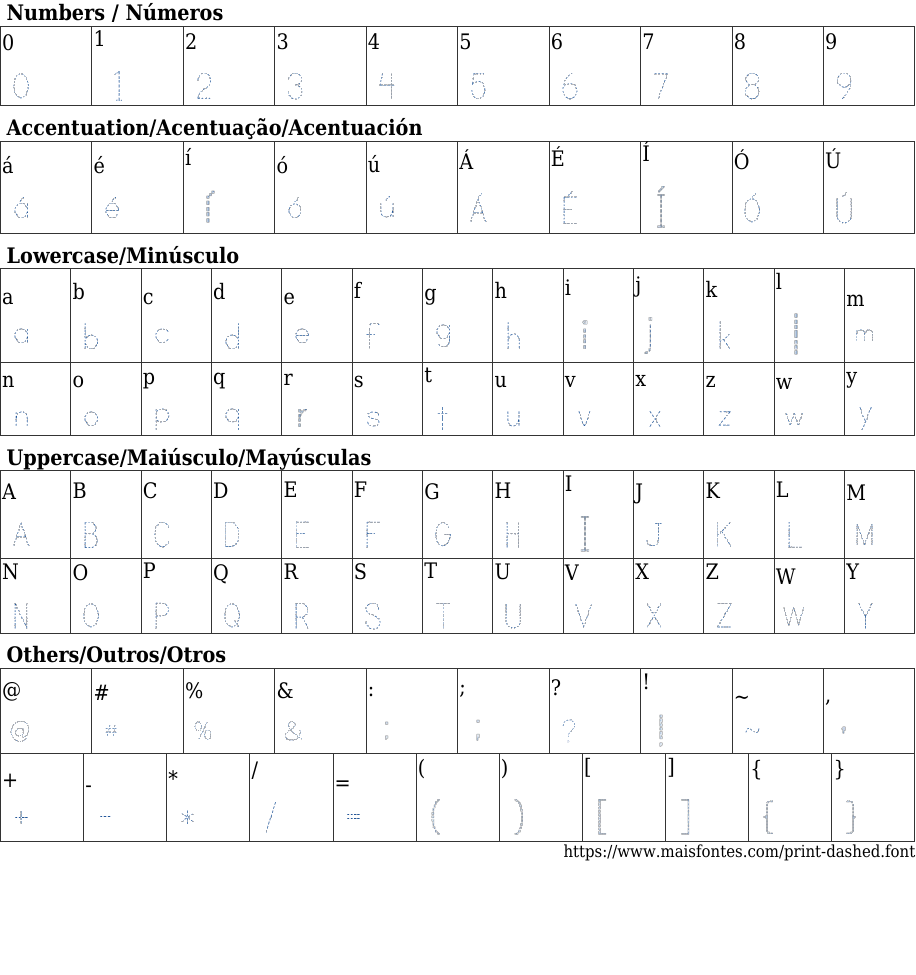
Download Print Dashed Font . Print dashed regular font by down fonts. A great choice for highlighting your design elements. File script name printdashed_tt.ttf download free for personal use. Print dashed font free download. Every font is free to download! ️ this font has been downloaded 40,000+ times. The print dashed font contains 222 beautifully designed characters. Dash fonts have letters that have a dashed line pattern as the outline. ️ customize your own preview on ffonts.net to make sure it`s the. Free download of print clearly font family with 3 styles. Looking for dashed printing fonts? See how to download print dashed for free! Download and install the print dashed font for free from ffonts.net. Sometimes the letters instead have horizontal dash marks. Click to find the best 7 free fonts in the dashed printing style.
Free download of print clearly font family with 3 styles. Dash fonts have letters that have a dashed line pattern as the outline. ️ customize your own preview on ffonts.net to make sure it`s the. Print dashed font free download. Every font is free to download! Download and install the print dashed font for free from ffonts.net. The print dashed font contains 222 beautifully designed characters. Looking for dashed printing fonts? Print dashed regular font by down fonts. See how to download print dashed for free!
Download Print Dashed Font Print dashed font free download. Print dashed regular font by down fonts. Looking for dashed printing fonts? Sometimes the letters instead have horizontal dash marks. File script name printdashed_tt.ttf download free for personal use. A great choice for highlighting your design elements. The print dashed font contains 222 beautifully designed characters. Click to find the best 7 free fonts in the dashed printing style. ️ customize your own preview on ffonts.net to make sure it`s the. Download and install the print dashed font for free from ffonts.net. Dash fonts have letters that have a dashed line pattern as the outline. See how to download print dashed for free! Free download of print clearly font family with 3 styles. Print dashed font free download. ️ this font has been downloaded 40,000+ times. Every font is free to download!
Print Dashed Regular Download for free at Free Fonts Download Print Dashed Font ️ customize your own preview on ffonts.net to make sure it`s the. The print dashed font contains 222 beautifully designed characters. Click to find the best 7 free fonts in the dashed printing style. Sometimes the letters instead have horizontal dash marks. Download and install the print dashed font for free from ffonts.net. File script name printdashed_tt.ttf download free for. Download Print Dashed Font.
Print Dashed Regular Download For Free, View Sample Text, Rating And More On Download Print Dashed Font Dash fonts have letters that have a dashed line pattern as the outline. ️ this font has been downloaded 40,000+ times. Looking for dashed printing fonts? File script name printdashed_tt.ttf download free for personal use. Print dashed regular font by down fonts. Sometimes the letters instead have horizontal dash marks. The print dashed font contains 222 beautifully designed characters. Free. Download Print Dashed Font.
Print Dashed Regular truetype font Download Print Dashed Font Print dashed font free download. Print dashed regular font by down fonts. Looking for dashed printing fonts? Click to find the best 7 free fonts in the dashed printing style. ️ this font has been downloaded 40,000+ times. ️ customize your own preview on ffonts.net to make sure it`s the. The print dashed font contains 222 beautifully designed characters. File. Download Print Dashed Font.
Dashed Font Sewing Font Instant Download Print Dashed Font Sometimes the letters instead have horizontal dash marks. ️ this font has been downloaded 40,000+ times. Download and install the print dashed font for free from ffonts.net. Every font is free to download! Dash fonts have letters that have a dashed line pattern as the outline. Free download of print clearly font family with 3 styles. File script name printdashed_tt.ttf. Download Print Dashed Font.
ABC Print Dotted Line Font Download Print Dashed Font ️ this font has been downloaded 40,000+ times. Sometimes the letters instead have horizontal dash marks. The print dashed font contains 222 beautifully designed characters. Dash fonts have letters that have a dashed line pattern as the outline. Free download of print clearly font family with 3 styles. See how to download print dashed for free! ️ customize your own. Download Print Dashed Font.
Dash leafy font free download Download Print Dashed Font Every font is free to download! Download and install the print dashed font for free from ffonts.net. Looking for dashed printing fonts? See how to download print dashed for free! A great choice for highlighting your design elements. Sometimes the letters instead have horizontal dash marks. ️ customize your own preview on ffonts.net to make sure it`s the. The print. Download Print Dashed Font.